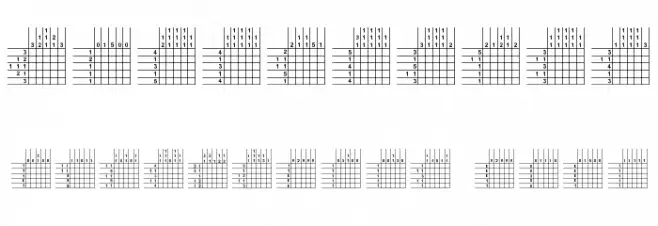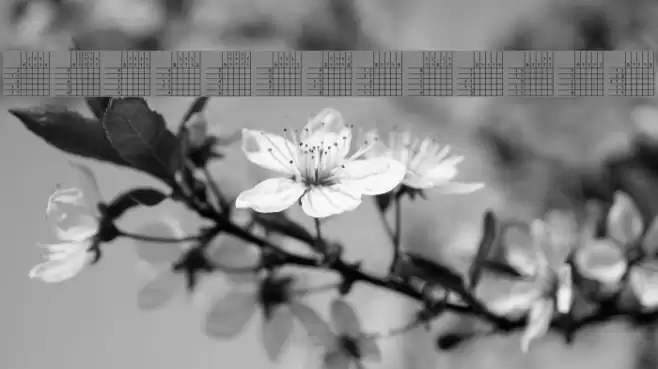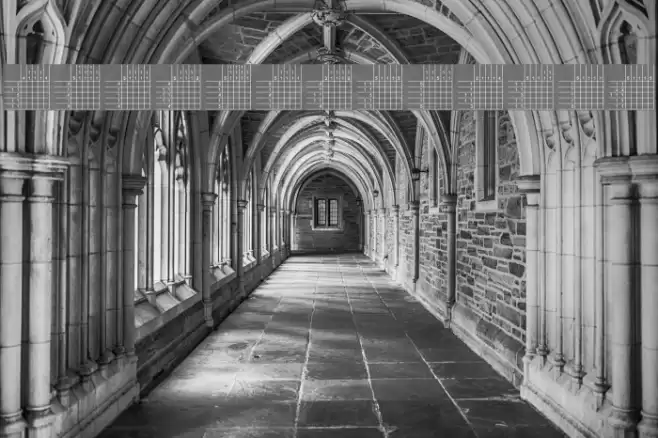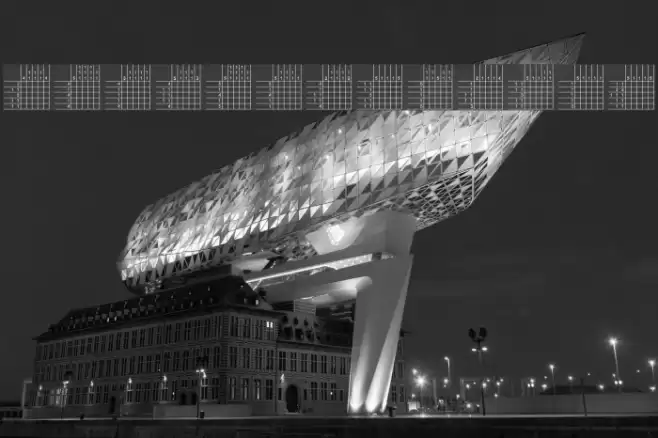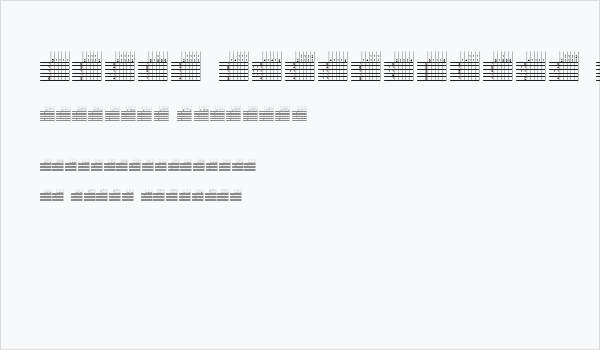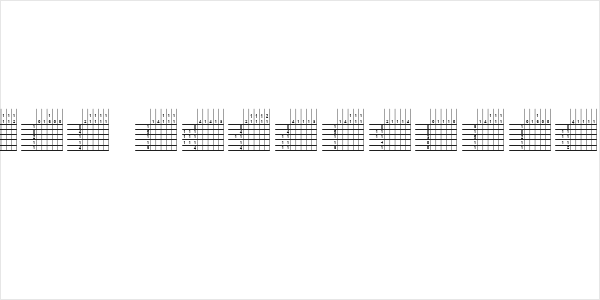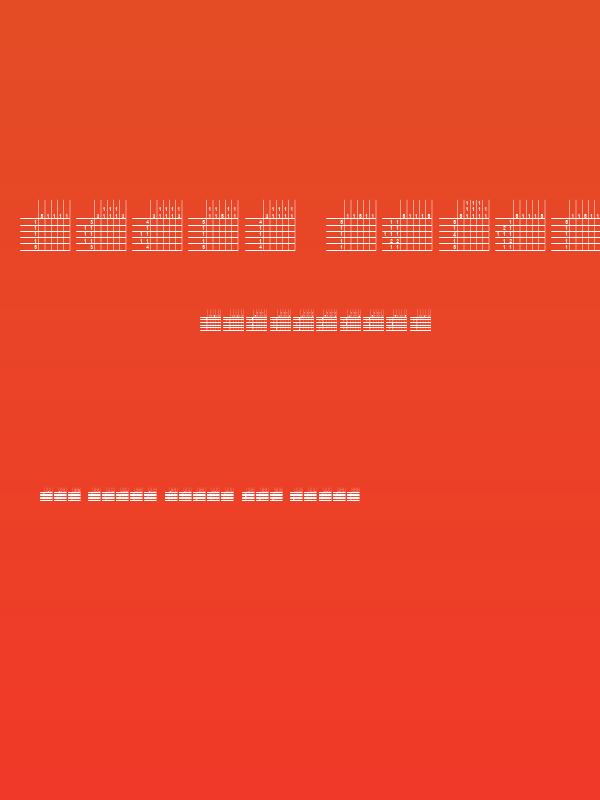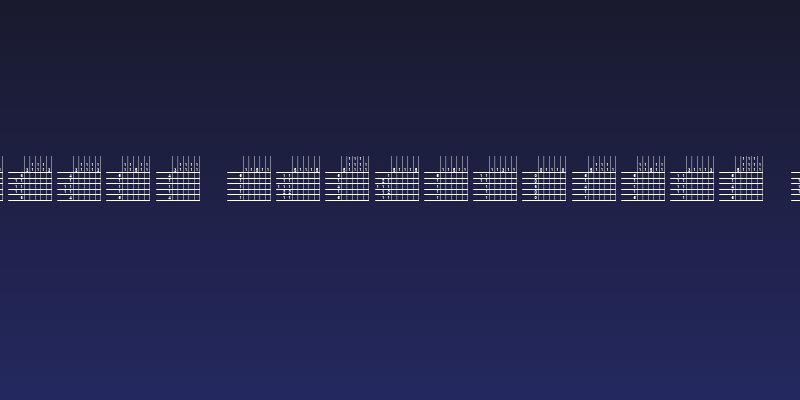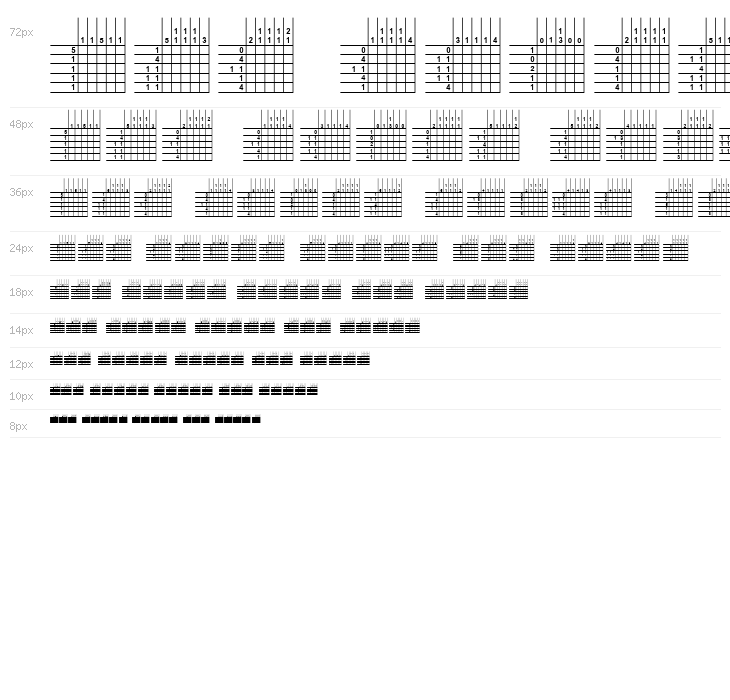
Logic twenty-five Q Font
Logic twenty-five Q Description
This image displays a grid-based symbolic logic puzzle, where each cell contains a set of horizontal and vertical lines with numbers, resembling a nonogram or logic grid rather than a typographic font. The symbols are not alphabetic, numeric, or punctuation glyphs, but rather puzzle clues.